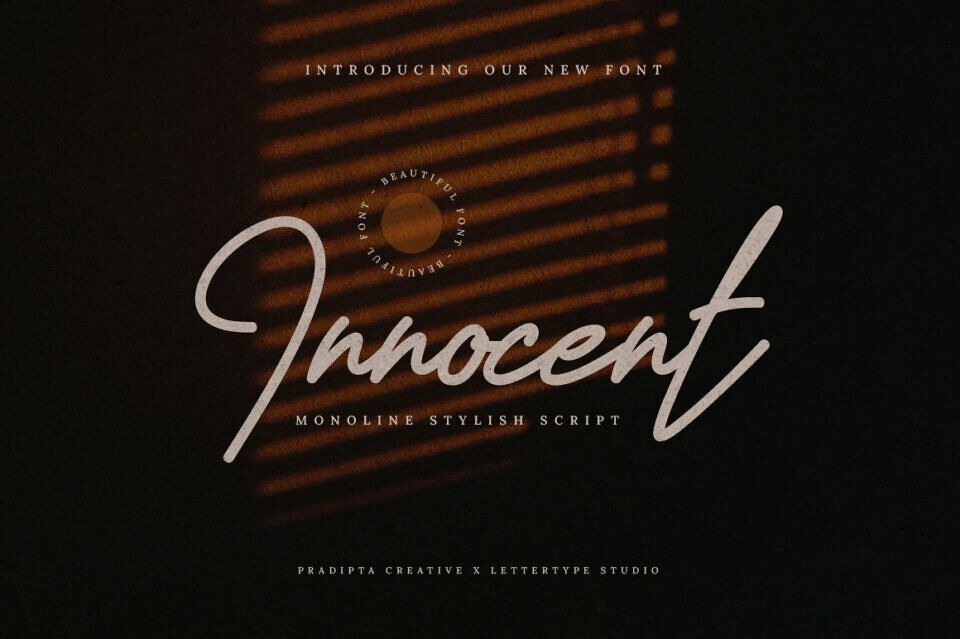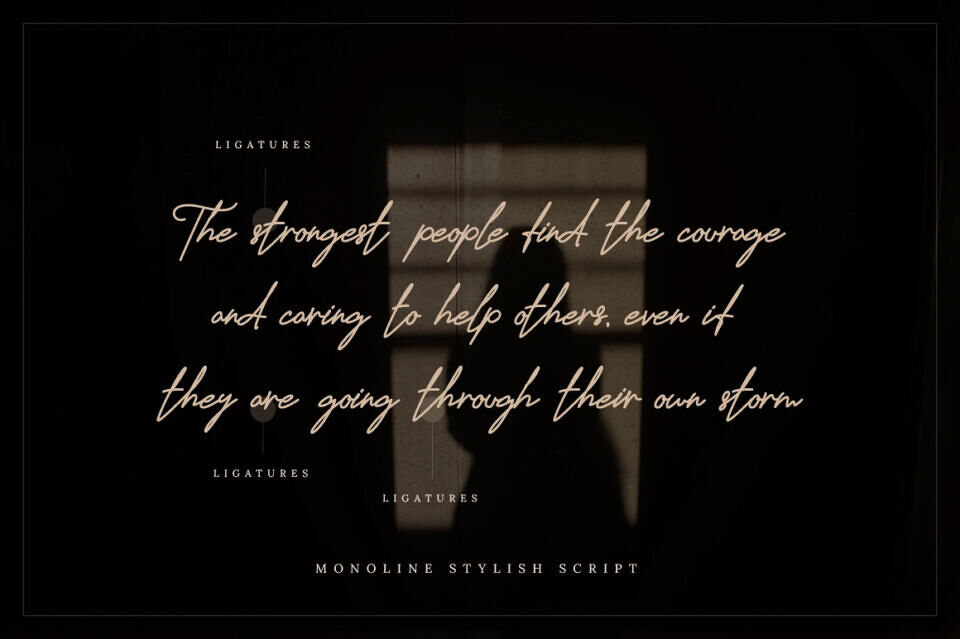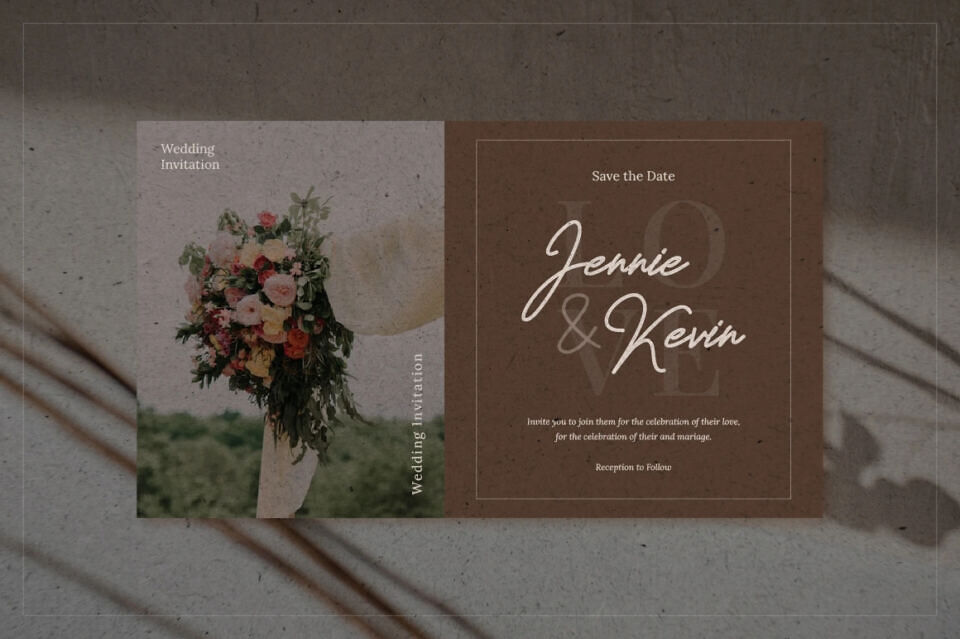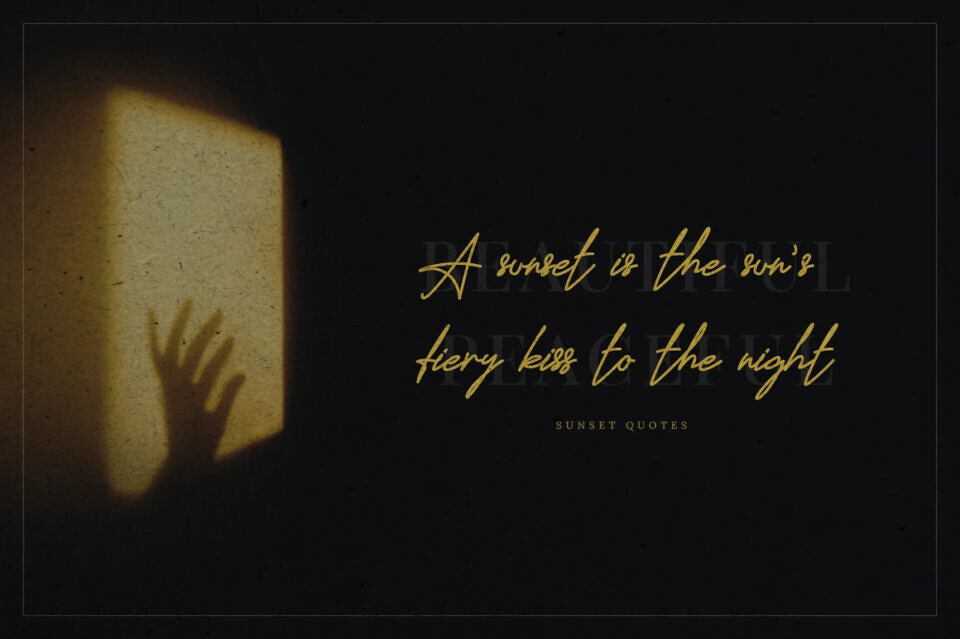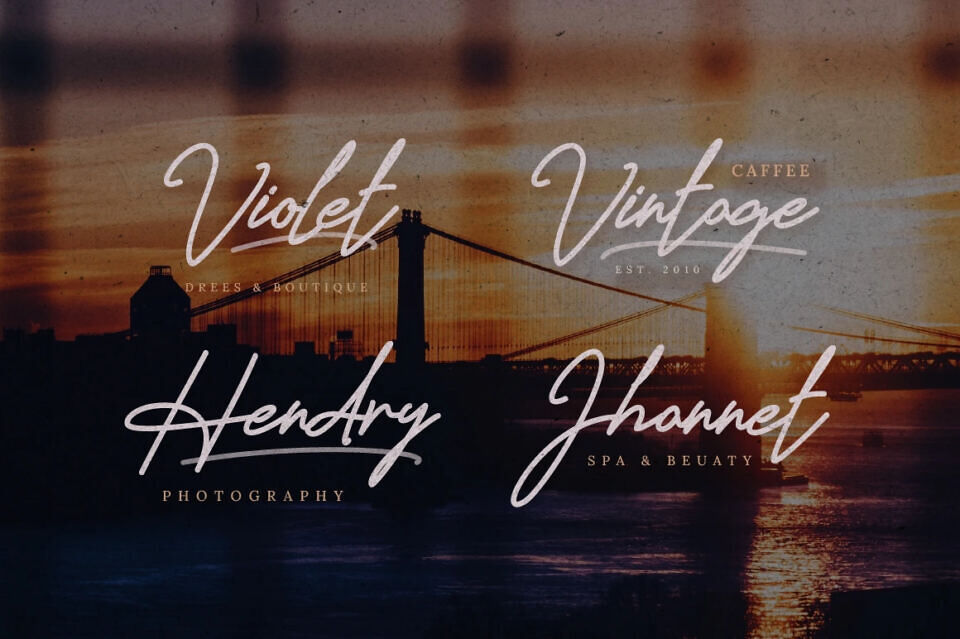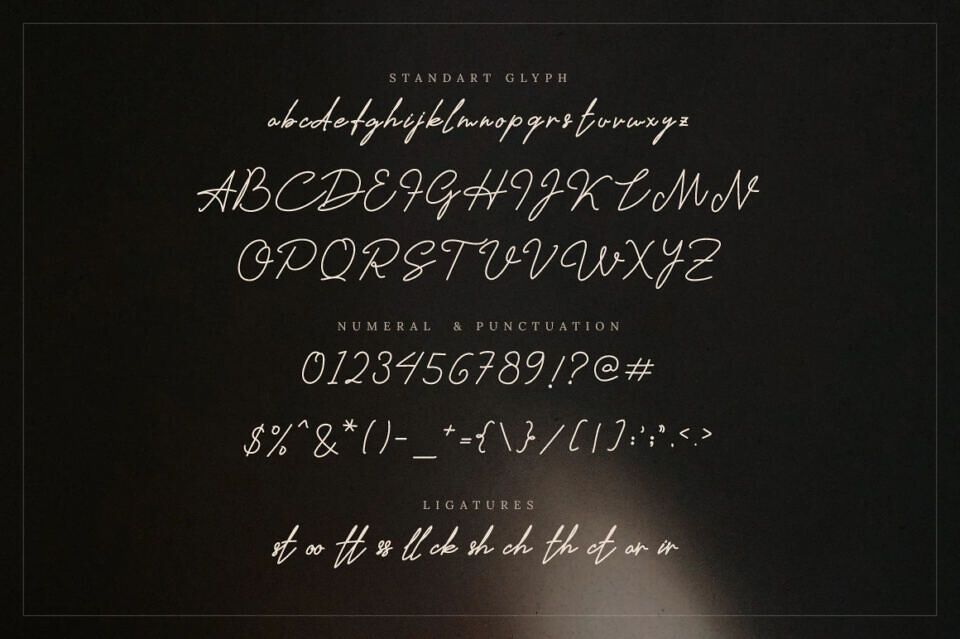
Innocent is a beautiful and monoline stylish script. Innocent consisting of a fashionable sophisticated signature-style script with its own unique curves and an elegant inky flow.
Innocent Script is perfect for photography, watermark, social media posts, advertisements, logos & branding, invitation, product designs, label, stationery, wedding designs, product packaging, special events or anything that need handwriting taste.